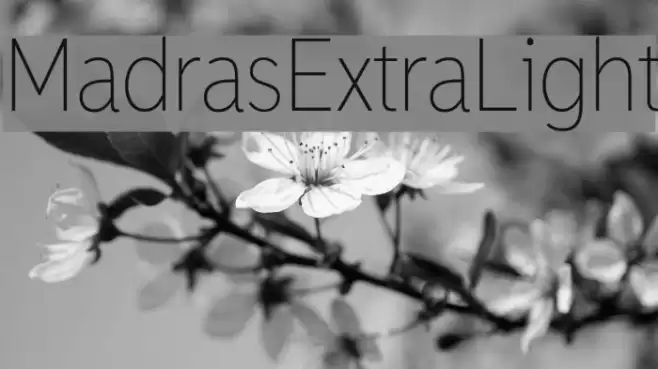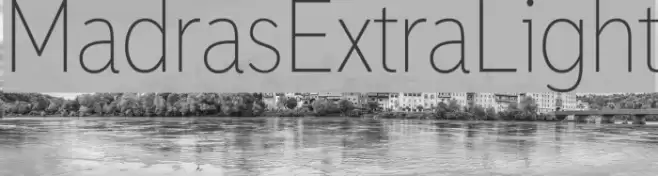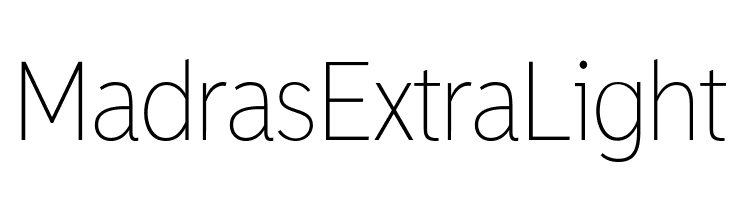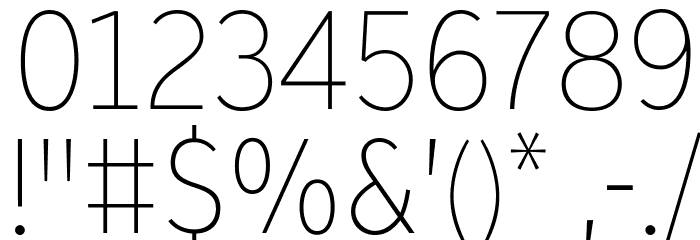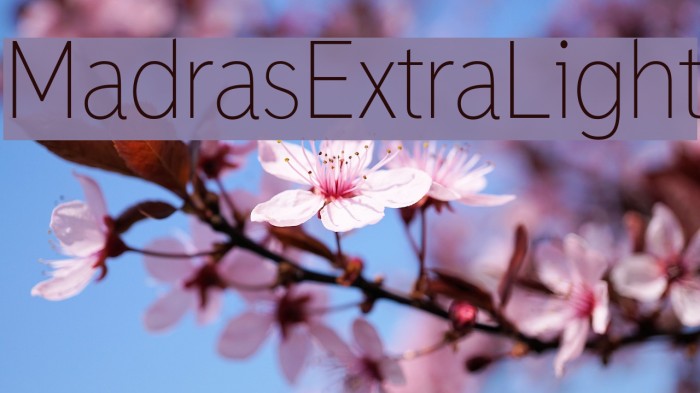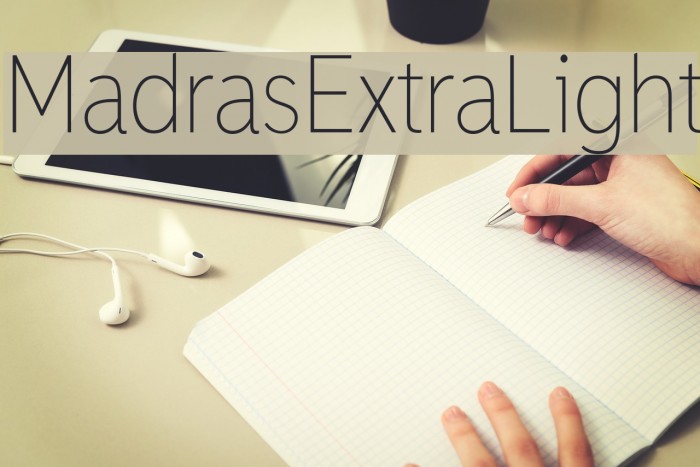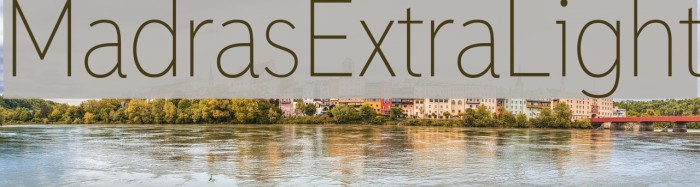
MadrasExtraLight Font
MadrasExtraLight Description
This font is a sleek and modern sans-serif typeface characterized by its extra light weight and clean lines. The characters are evenly spaced with a uniform stroke width, giving it a minimalist and airy appearance. The uppercase letters are tall and elegant, while the lowercase letters maintain a consistent height, enhancing readability. The numerals are straightforward and align well with the overall design. Special characters are crafted with the same precision, ensuring they blend seamlessly with the alphabetic characters. This font's simplicity and clarity make it versatile for various design applications.
A modern, extra light sans-serif font with clean lines and uniform spacing from Uncategorized fonts.